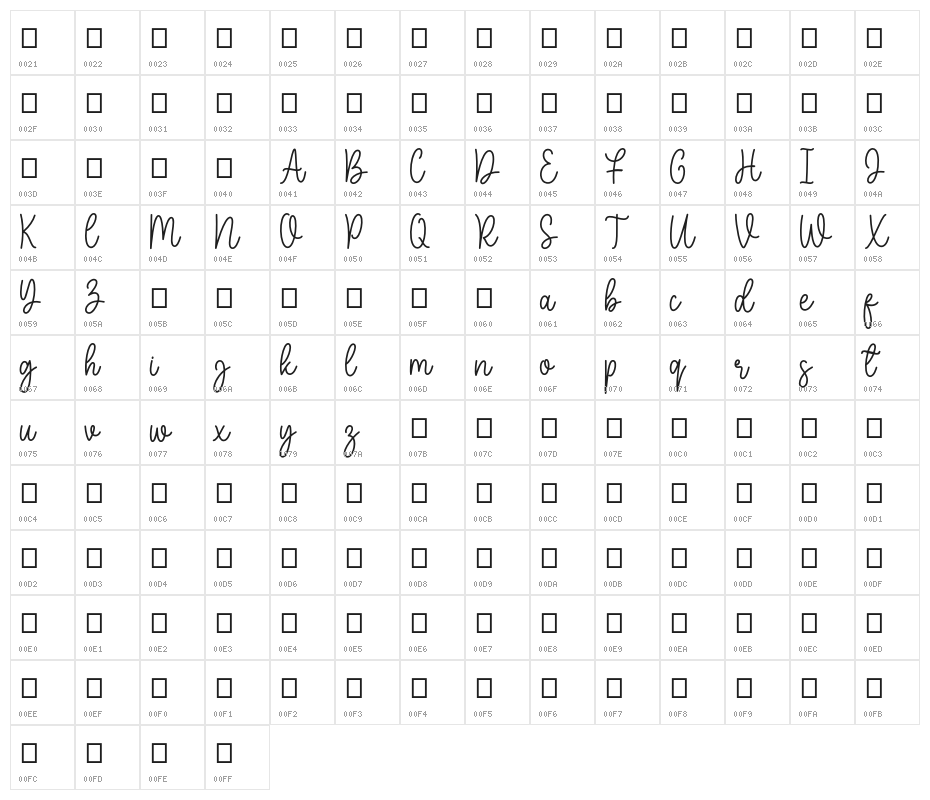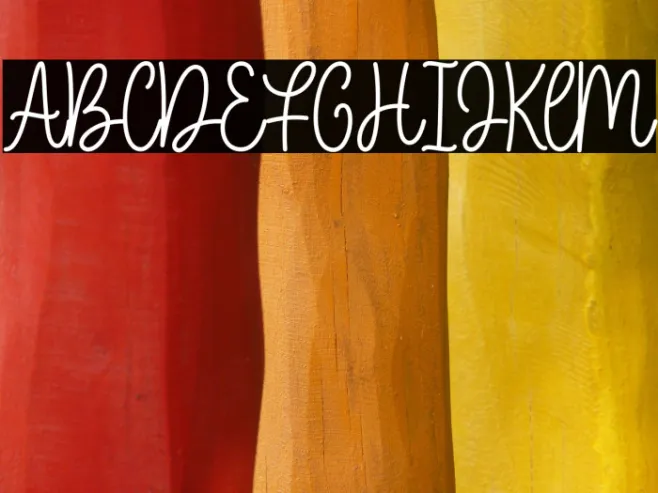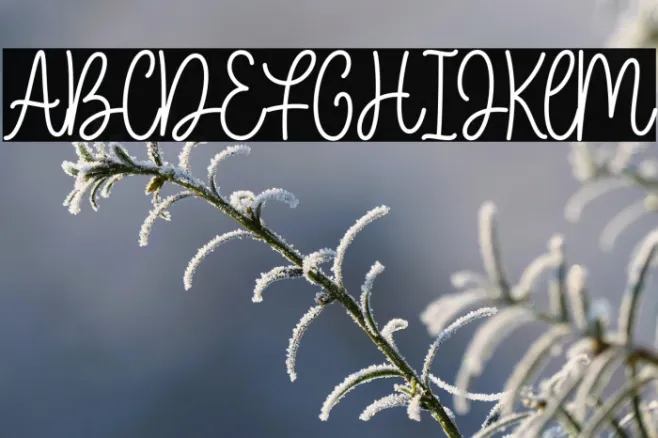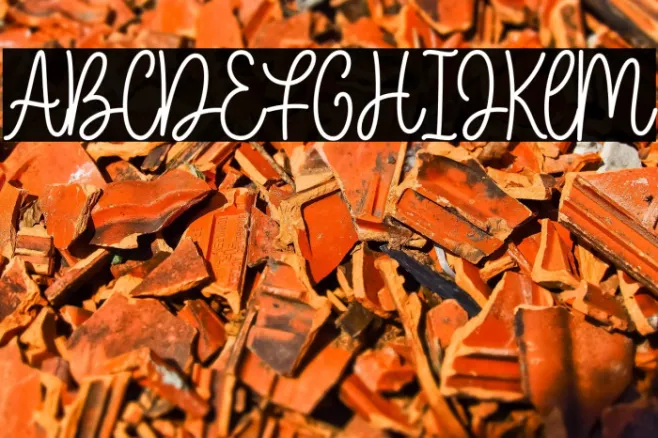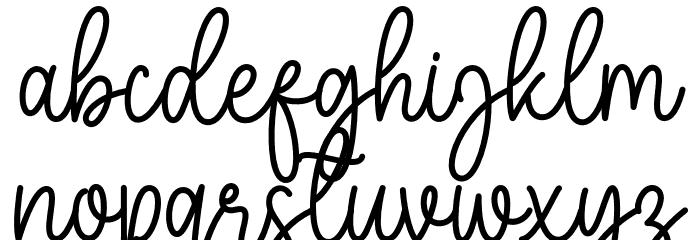
Beloved - Demo Font
Beloved - Demo Description
This font features a charming and flowing script style, characterized by its elegant, cursive letterforms. The uppercase letters are tall and graceful, with smooth curves and loops that give a sense of fluidity and movement. The lowercase letters maintain a consistent style, with rounded edges and a playful, handwritten feel. The overall appearance is both sophisticated and approachable, making it suitable for a variety of creative projects. The font's design is versatile, allowing it to be used in both formal and informal contexts, adding a personal touch to any text.